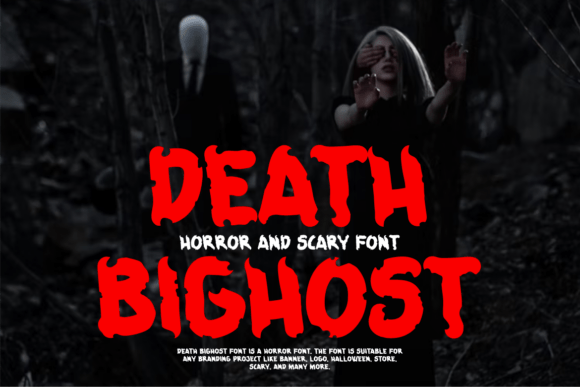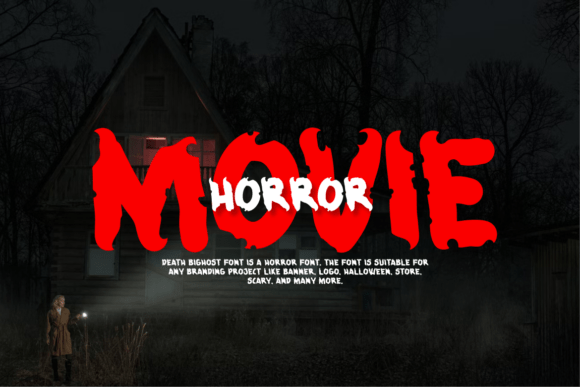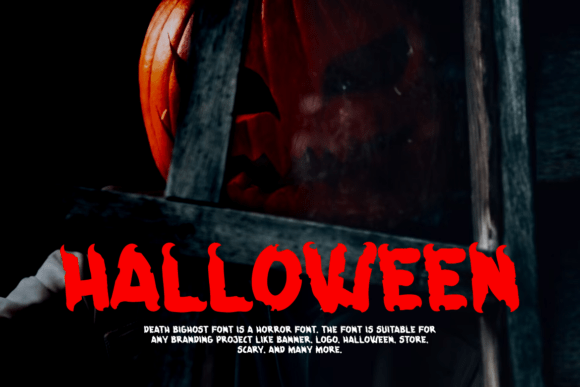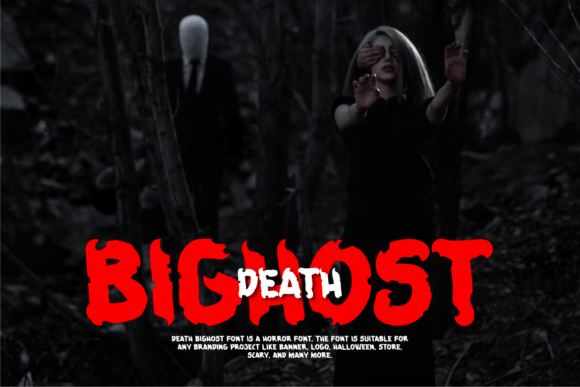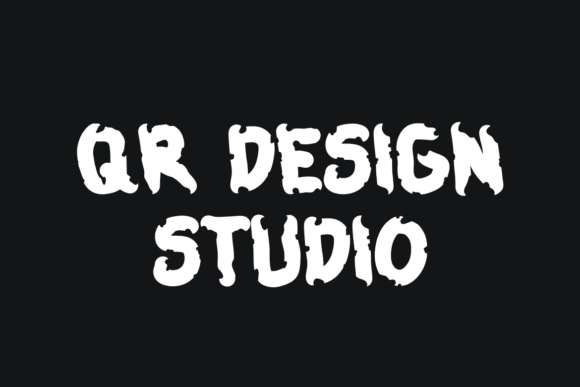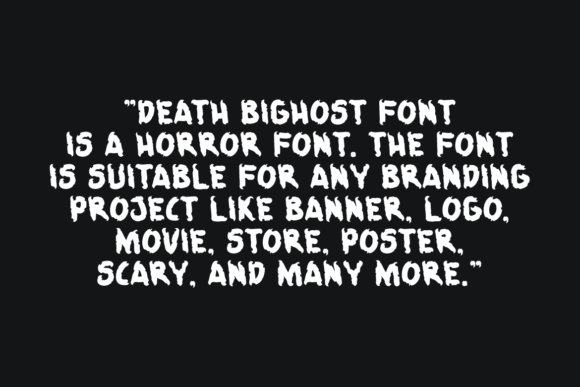
The Birth of a Horror Icon: Unpacking the Death Bighost Font
As a designer, have you ever had that moment when a font suddenly sparks an idea and transports you to a world of creativity? For many, it’s a fleeting glimpse of inspiration that can make or break a project. For me, that moment came when I stumbled upon the Death Bighost Font. Its menacing display font style is a bold, visceral statement that’s perfect for invoking a sense of primal fear and terror.
Death Bighost Font is a horror-themed font that’s designed to make a lasting impact. With its thick, impactful weight and unsettling, irregular texture, it’s the perfect choice for designers who want to add a touch of darkness to their projects. Whether you’re working on a horror movie poster, eerie album art, or a Halloween event flyer, Death Bighost Font is an ideal choice for making a powerful, shocking impression.
Death Bighost Font Key Features
- Unique Characteristics: Features a distressed, horror-themed design with bold lines, eerie textures, and a spooky atmosphere, perfect for Halloween-themed designs, horror movies, and gothic-inspired art.
Designer Review: Death Bighost Font
Overall, I think the Death Bighost Font has some interesting qualities that make it stand out, but it also has some limitations that might hold it back.
- The font’s bold and eerie aesthetic is perfect for projects that need a touch of darkness and mystery.
- The varied line spacing and letterform shapes add to the font’s unique, handmade feel.
- The font supports a wide range of languages, making it a versatile option for global projects.
- The font can be overwhelming if used extensively, so it’s best to use it sparingly to avoid visual fatigue.
- The font lacks a clear hierarchy of weights and styles, which can make it difficult to create a cohesive visual identity.
- The font’s spacing and kerning can be inconsistent at times, which may require manual adjustments to achieve the desired look.
The Death Bighost Font is a bold and eye-catching option that’s perfect for projects that need a touch of edginess. While it has some limitations, it’s a great choice for designers who want to add some visual interest to their work. Just be sure to use it judiciously to avoid overwhelming the viewer.
Tips for Getting the Most Out of the Death Bighost Font
Here are some tips for getting the most out of the Death Bighost Font:
- Experiment with different font sizes and styles to achieve the desired effect.
- Use the font in combination with other bold and distressed fonts for a unique look.
- Apply the font to images and graphics to add texture and depth.
The Death Bighost Font is commonly used in:
- Distressed and vintage-themed designs.
- Grungy and